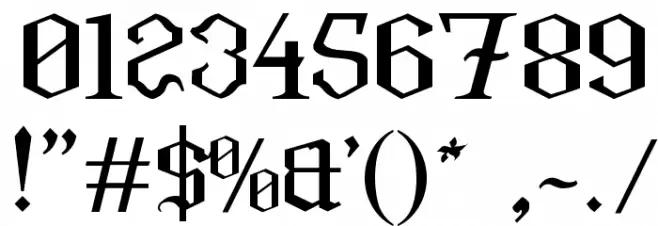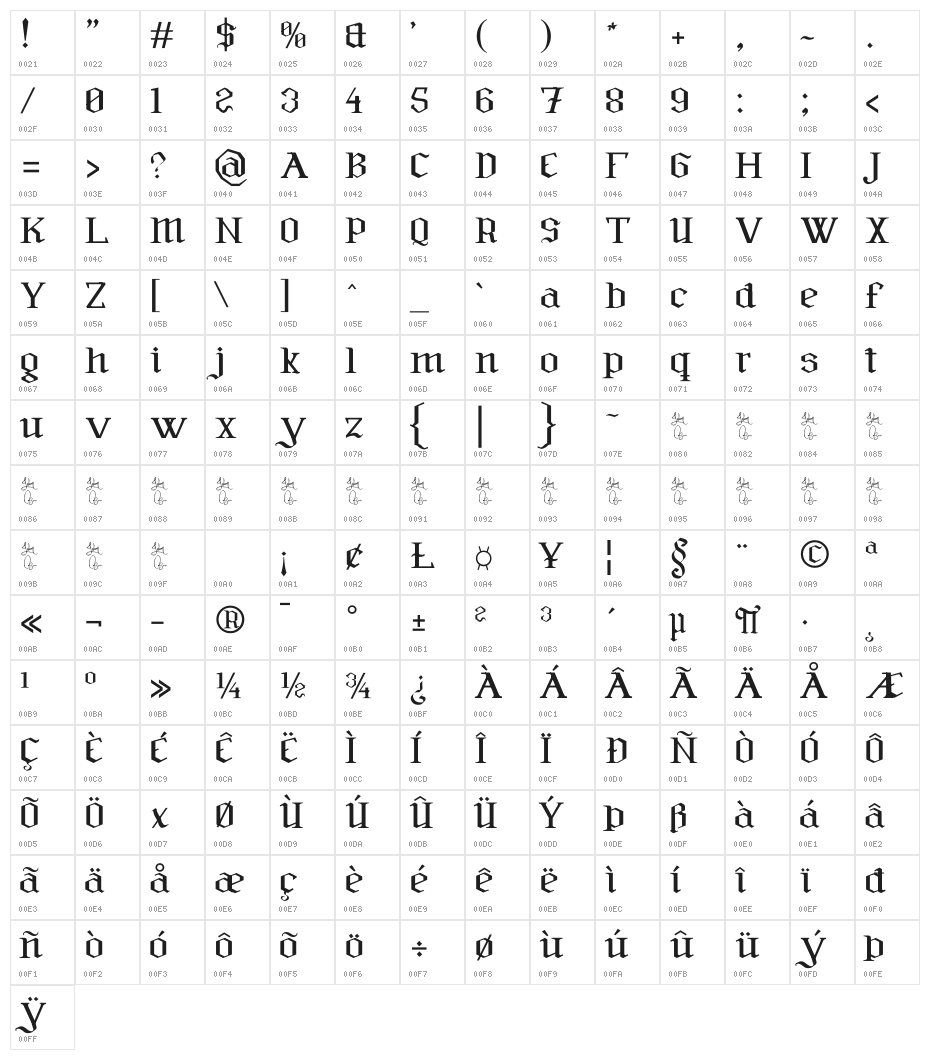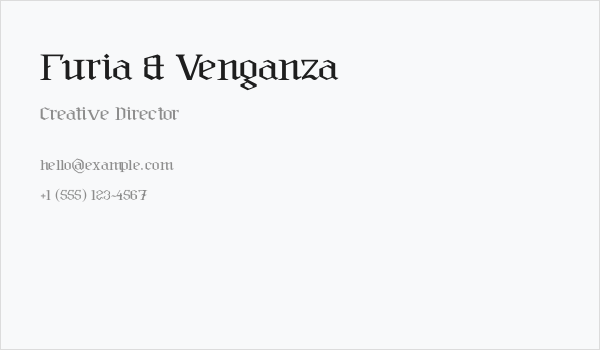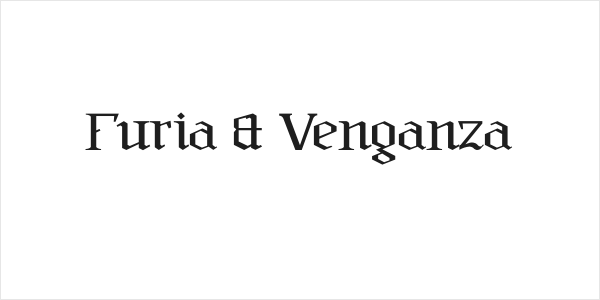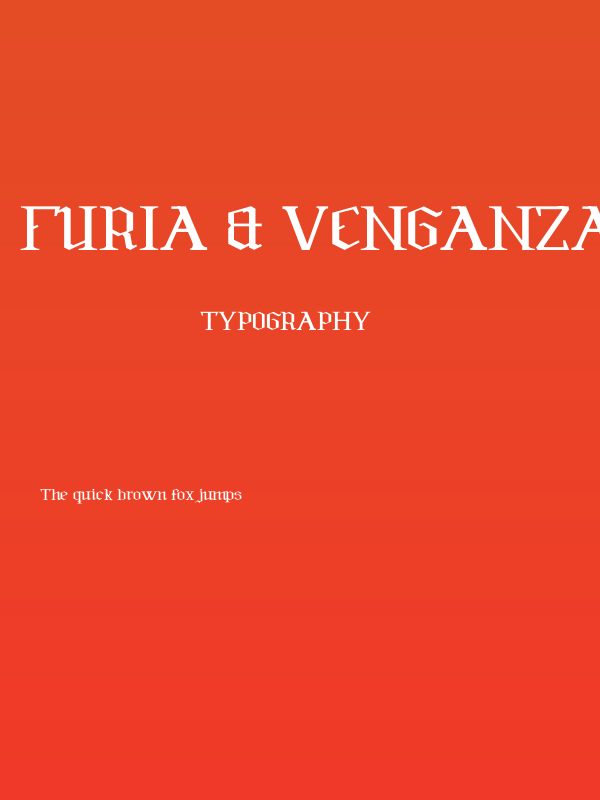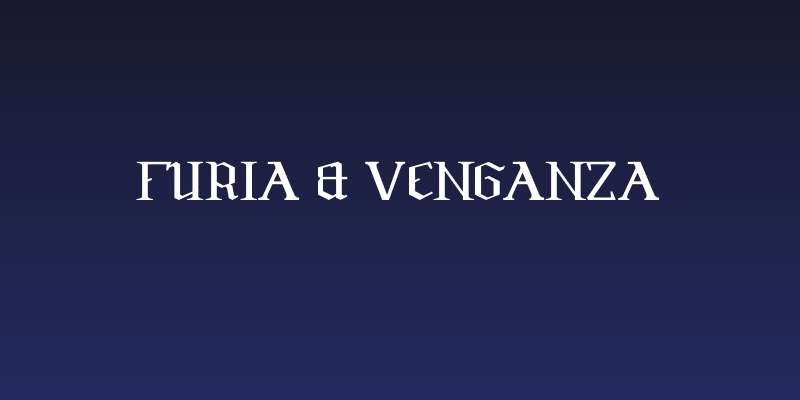
Furia & Venganza Font
Furia & Venganza Description
This font exudes a bold and dramatic presence, characterized by its sharp, angular lines and intricate detailing. The uppercase letters are particularly striking, with a Gothic influence that suggests a sense of tradition and authority. The lowercase letters maintain this aesthetic, offering a cohesive look across all text. Numbers and special characters are designed with the same attention to detail, ensuring consistency throughout. The font's unique style makes it stand out, ideal for projects that require a touch of elegance and historical flair.
| Proposed Projects | Ideal for branding, posters, book covers, and any design that requires a dramatic and historical touch. |